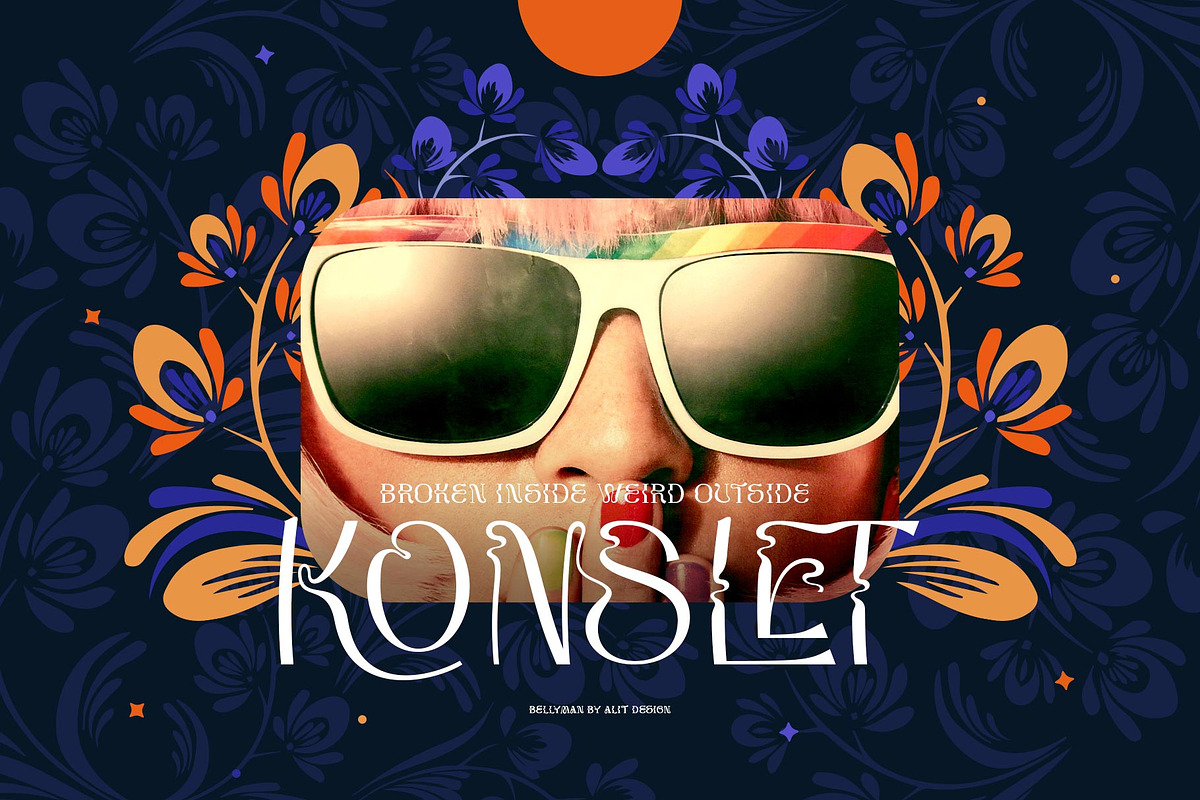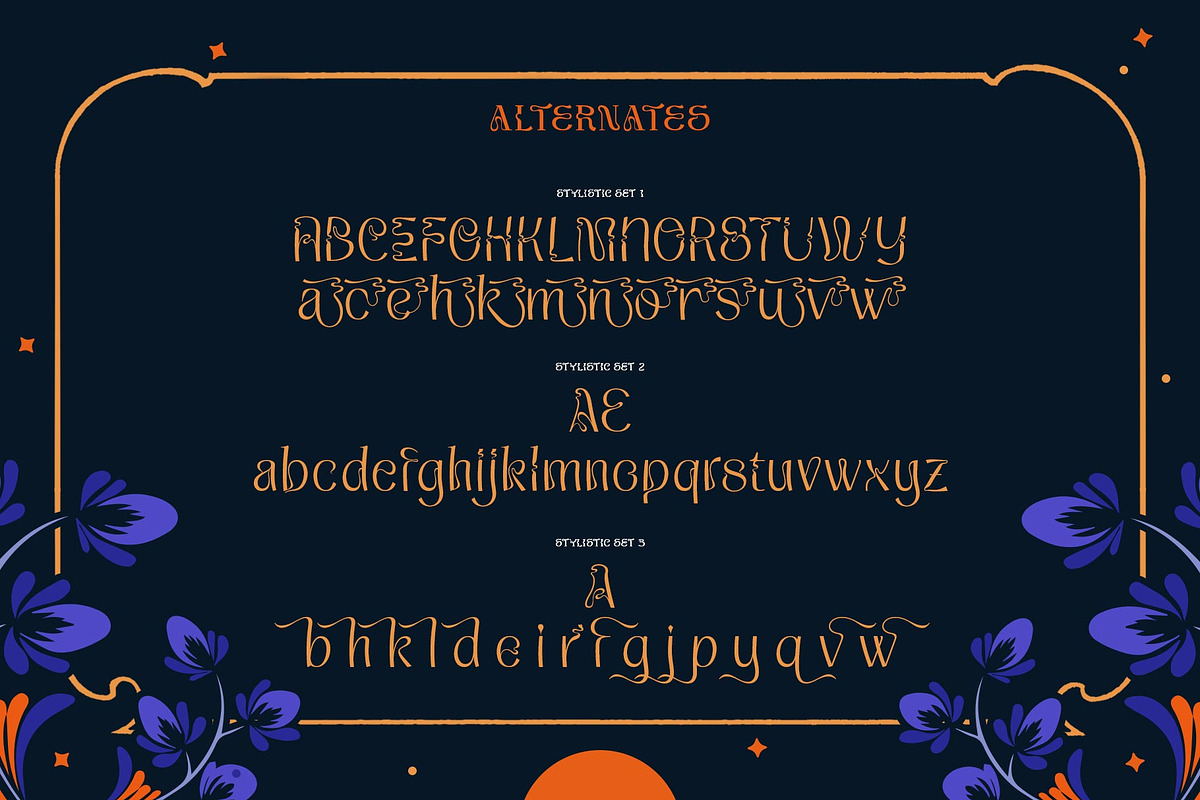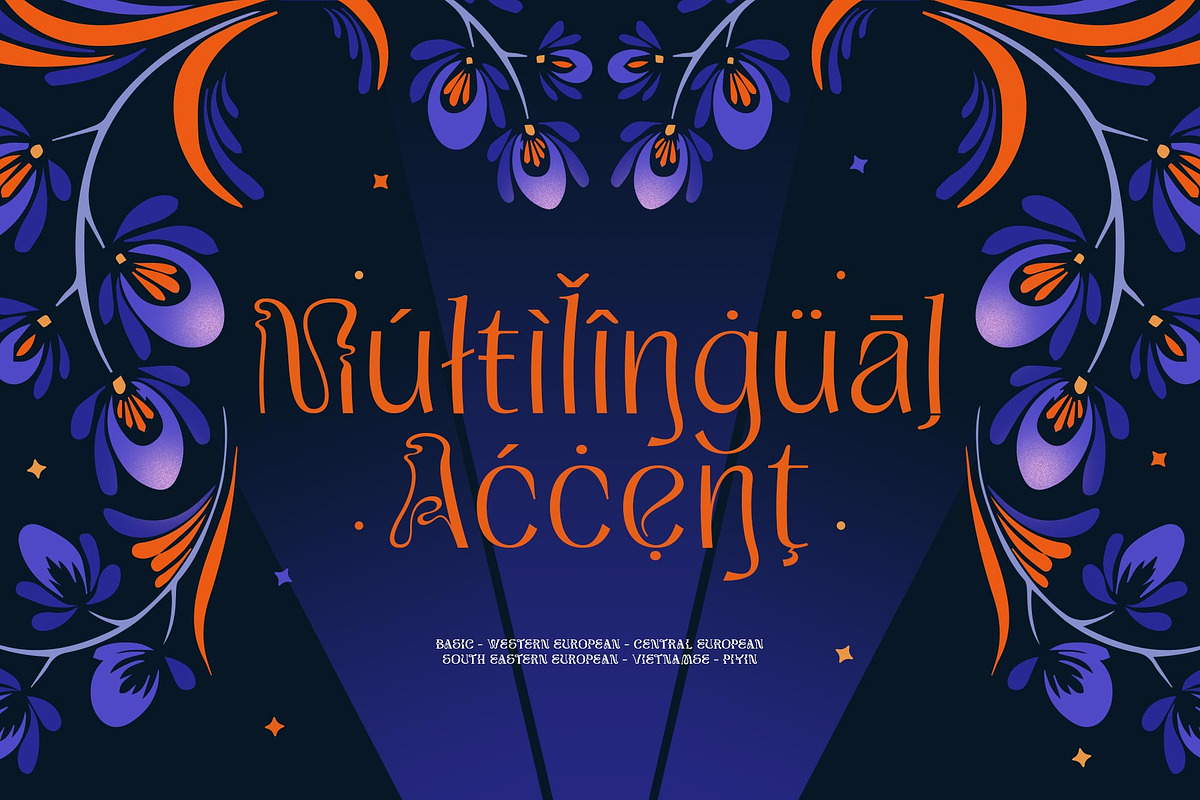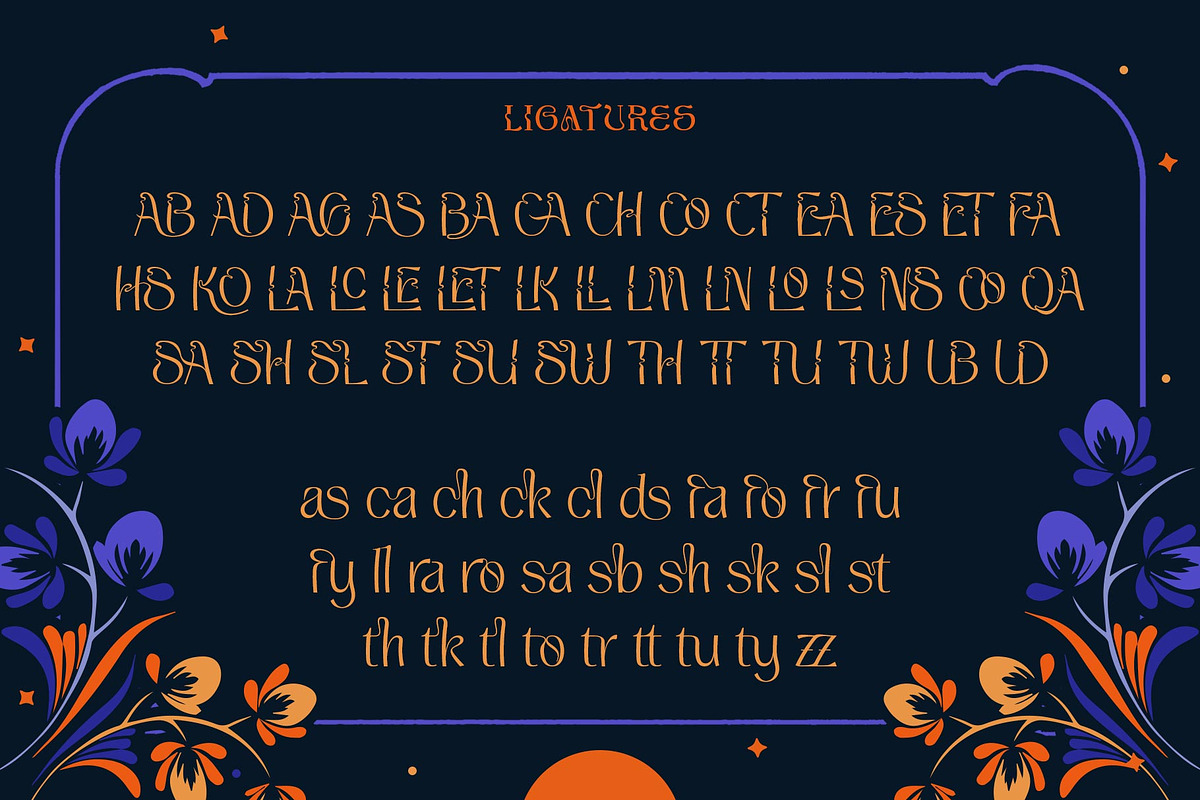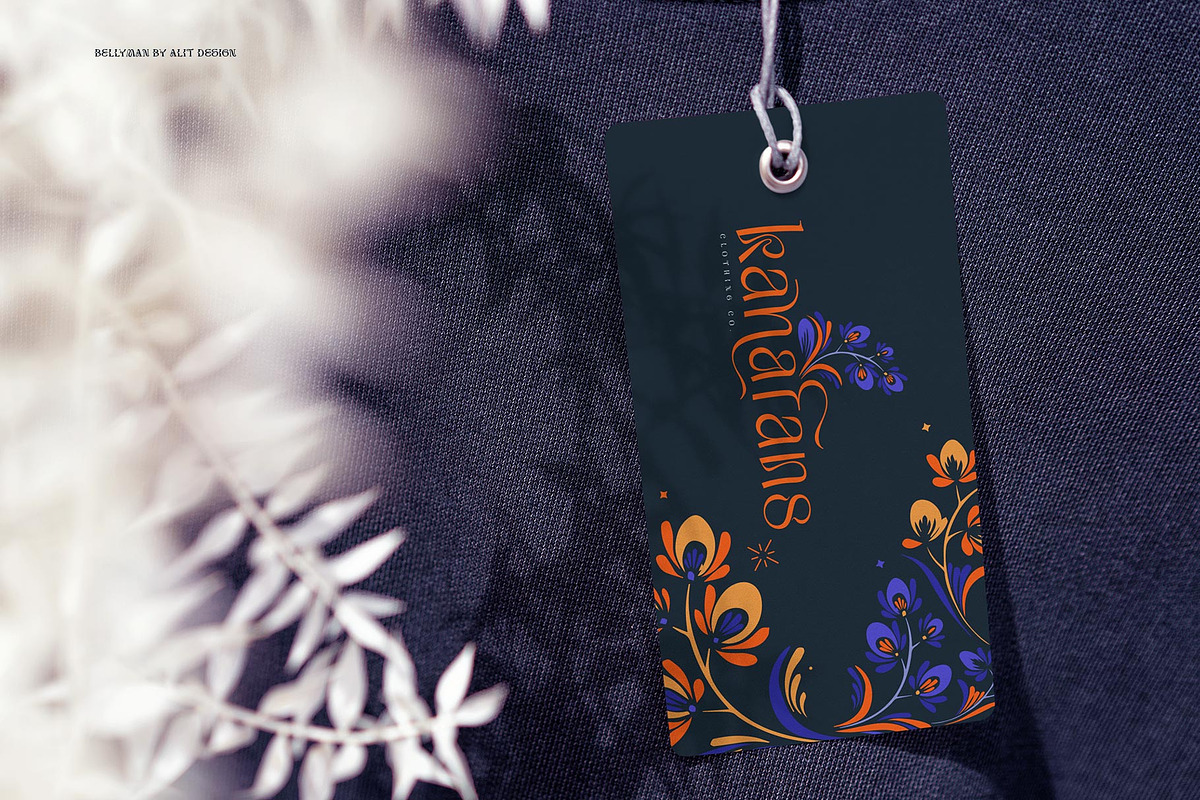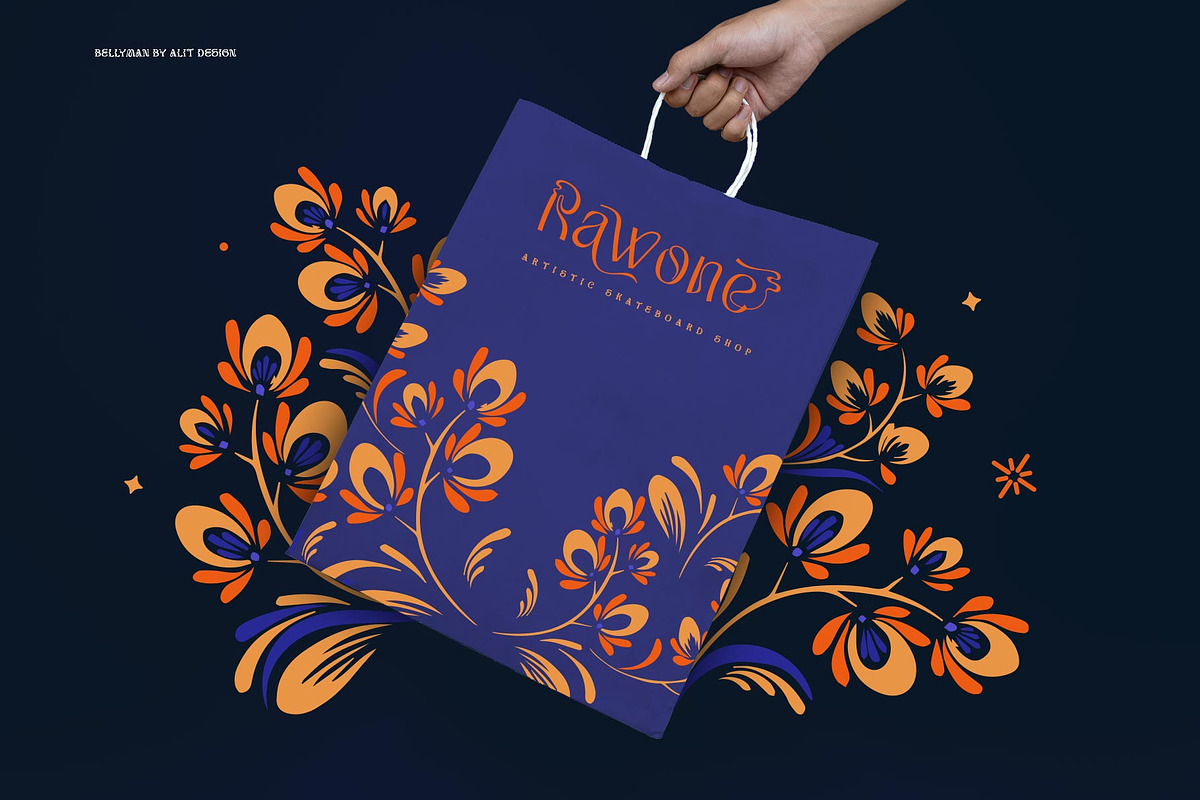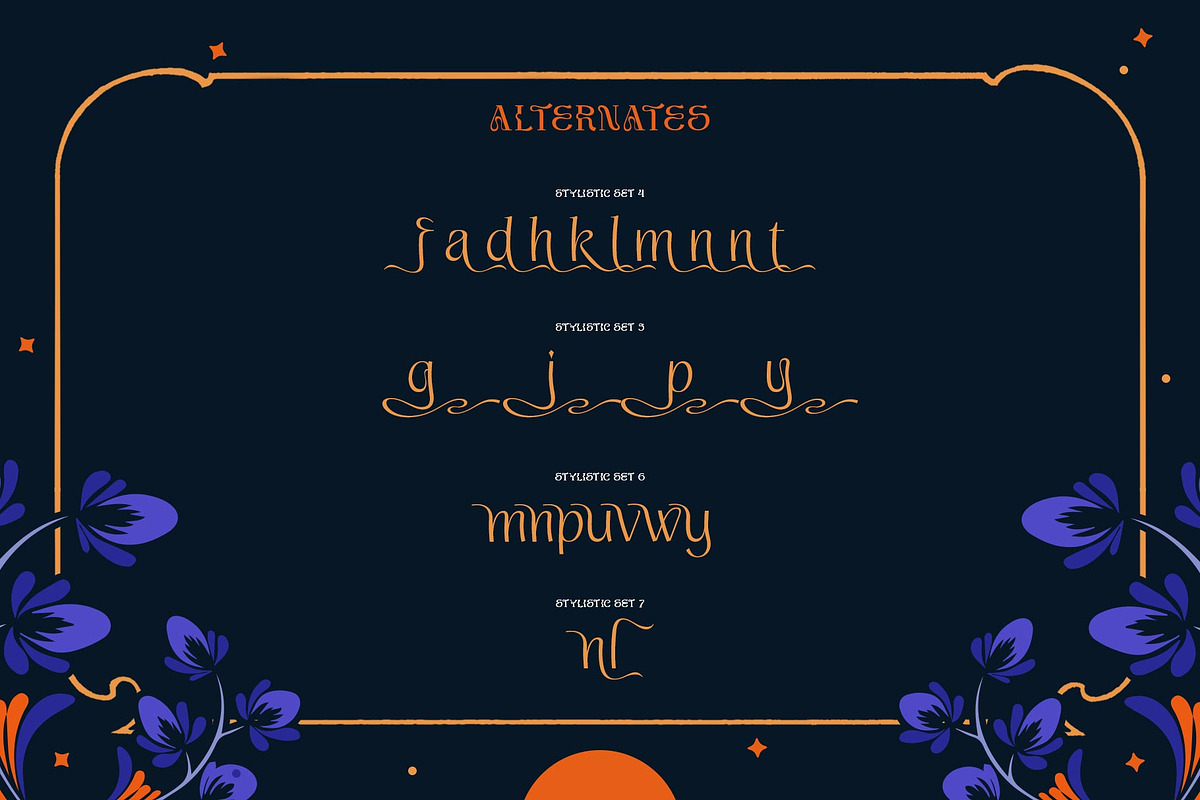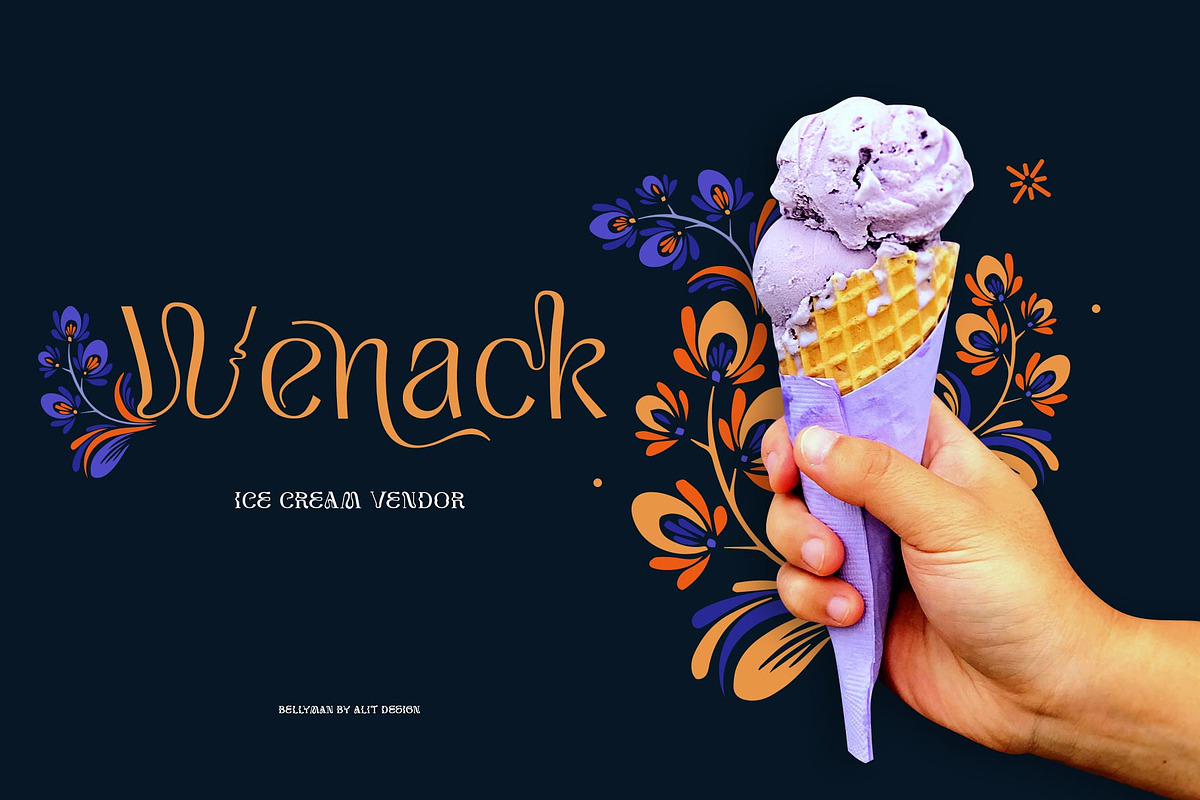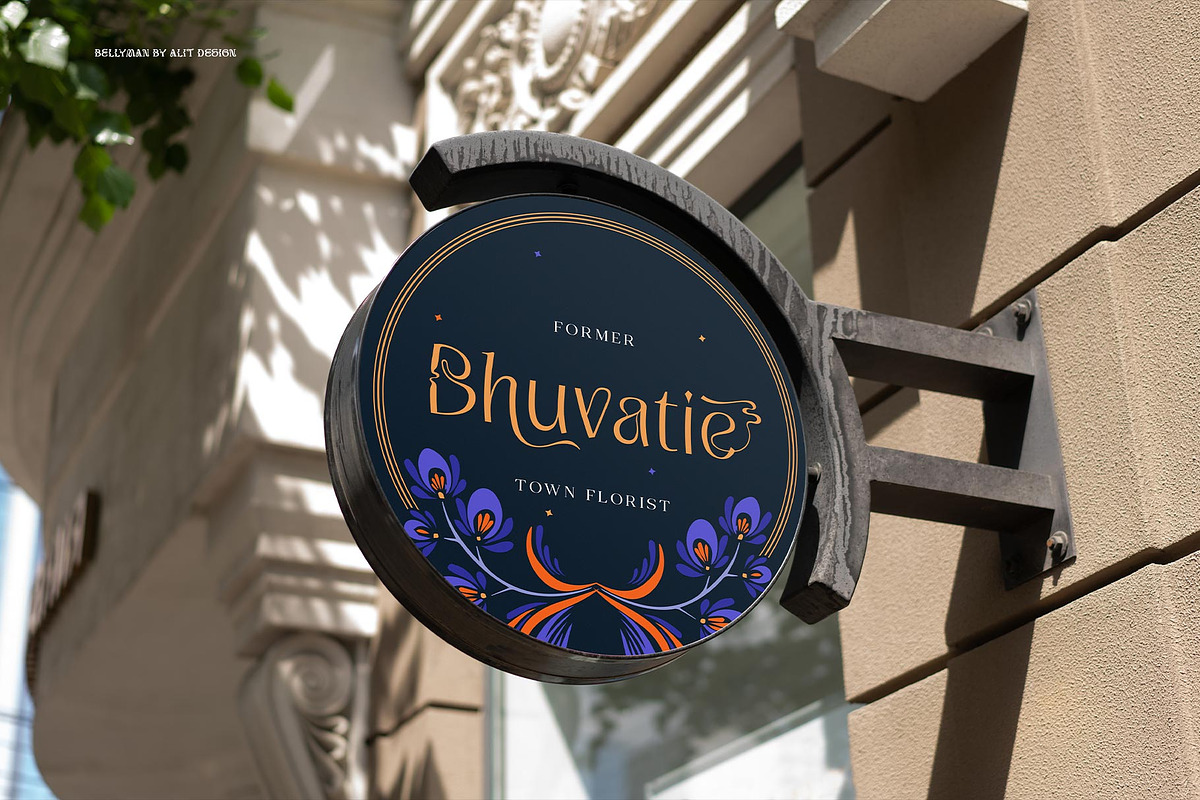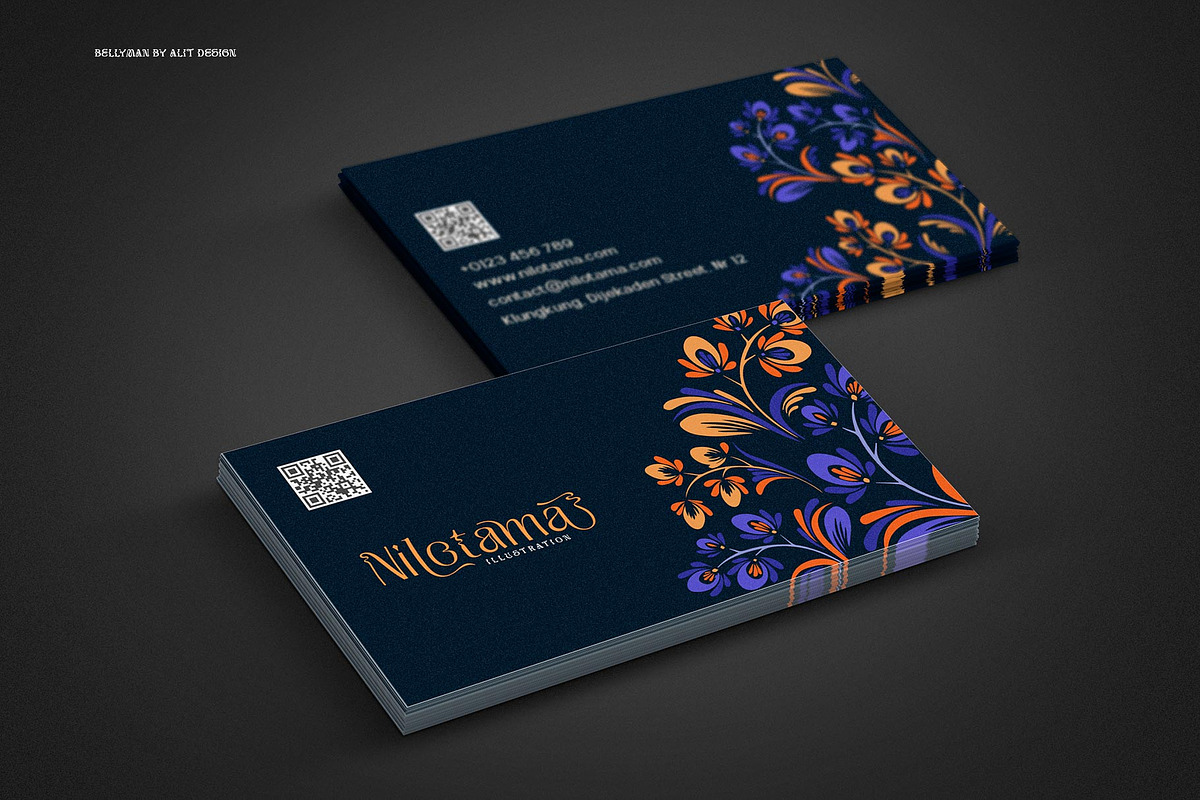
Bellyman Typeface
Introducing Bellyman Typeface
The Bellyman Typeface is made with the concept of a modern font display that gives a unique impression because it has a curvy shape like waves that is charming and unique. The serif style adopted by the Bellyman font is a 2022 style font, has a unique swash alternative, has a large selection of ligatures. In addition.
Serif typefaces such as “ Bellyman typeface” are very easy to apply to any design, especially those with an elegant and smooth concept, besides that this font is very easy to use both in design and non-design programs because everything changes and glyphs are supported by Unicode (PUA).
The Bellyman typeface contains 623 glyphs with many unique and interesting alternative options. In the poster preview all the letters are in the Mongkeg typeface.